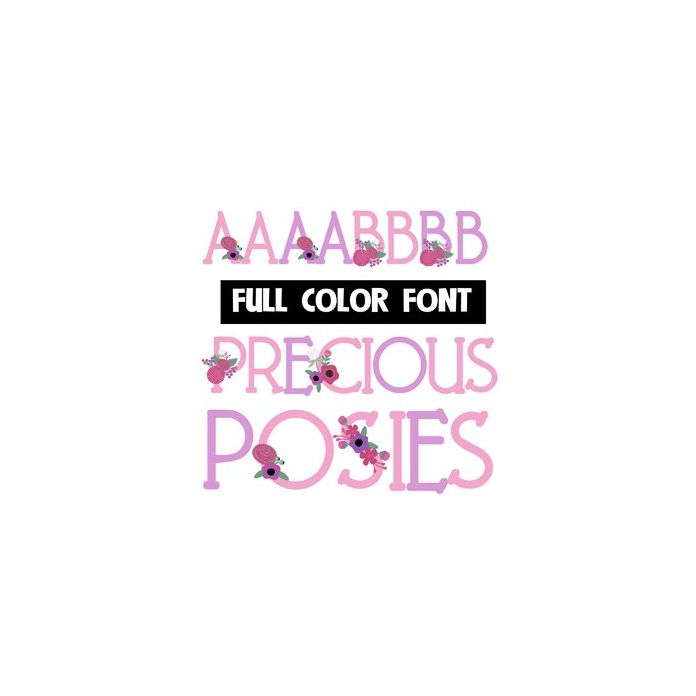
Precious Posies Color Font
This full-color font features a spring color palette and flowers here and there. There is an alt upper and lowercase with additional colors that you can access through Silhouette's glyph map. This font works best for titles, displays, posters and more. Please note color fonts will show as black in non compatible programs. This font type is compatible with Silhouette Studio.